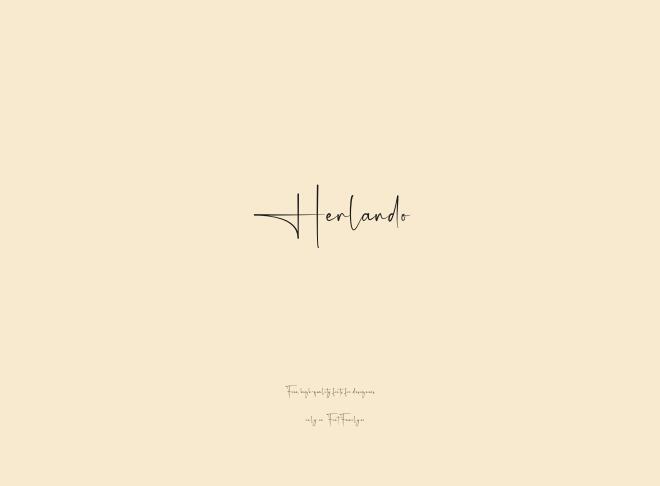
Herlando Font
Introducing Herlando Font, a stylish and elegant handwritten script typeface. With its flowing, smooth curves and natural feel, it's perfect for adding a personal touch to your designs. Herlando Font stands out in logo design, branding, wedding invitations, greeting cards, and any design project that requires a sophisticated touch. Compared to other fonts, Herlando offers a more authentic handwriting feel, making your designs come alive with personality and elegance. Its unique style sets it apart, making it a great choice for designers who want to make an impact. With its free personal use license, Herlando Font is an easily accessible tool for every designer's font library.